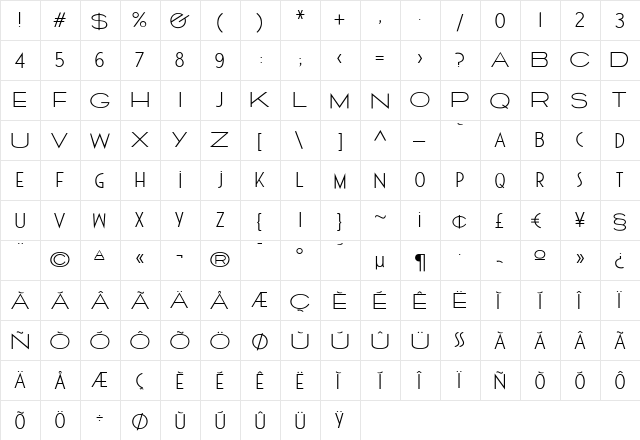
Cassandra Thin Regular
Cassandra Thin offers clean, dependable letterforms without strong stylistic allegiance, making it a practical choice for designers who need flexibility. The delicate stroke weight brings airiness and refinement to layouts.
Pro Tip: Use Cassandra Thin in both headline and body roles to test its range before committing to a single application.